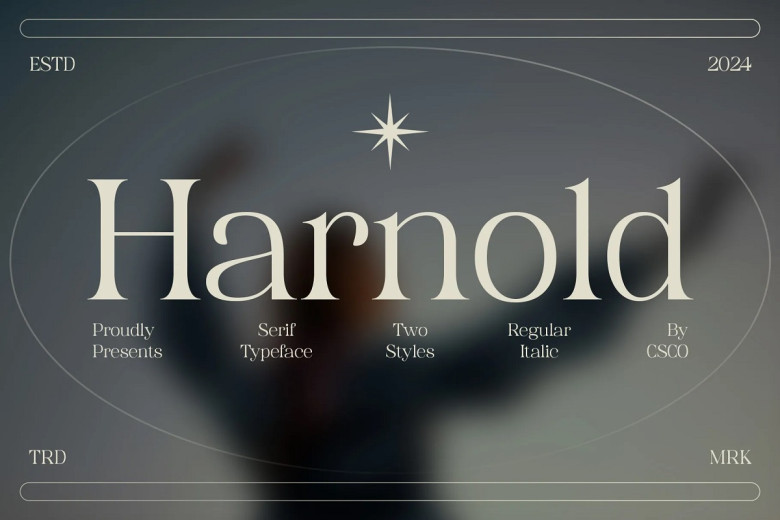
Harnold Font
Harnold Font is a powerful example of timeless elegance, inspiring timeless sophistication through its striking contrast serif style and exuding an air of timeless refinement in all aspects of its appearance.
An Outstanding Contrast, Captivating All Its striking contrast between thin and thick strokes not only captures our eyes but adds depth and dimension to every letterform – leaving an everlasting visual impactful memory behind.
Versatility Beyond Measure is a versatile font with many uses; from editorial layouts, high-end invitations and branding initiatives all the way through to invitation cards for special occasions and more, its elegant design fits seamlessly into a range of design environments.
Enduring Legacy font represents timeless elegance. It has managed to transcend fashion trends, cementing itself as an icon within typography. Its refined style promises lasting impression and speaks of design’s elegant timeless beauty.
Harnold Serif Font